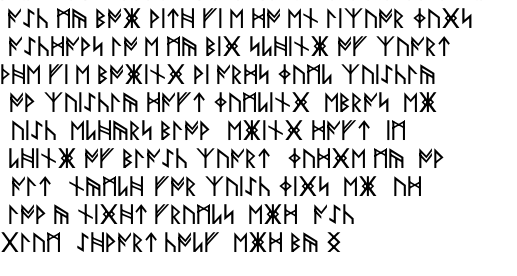
More Information of NorseCode
✓ Norse Code
✓ NorseCode
✓ Starving-4 Entertainment
✓ Darren Rigby
✓ A font based on the characters in MW's Collegiate Dictionary, Tenth Edition, under the entry "rune".